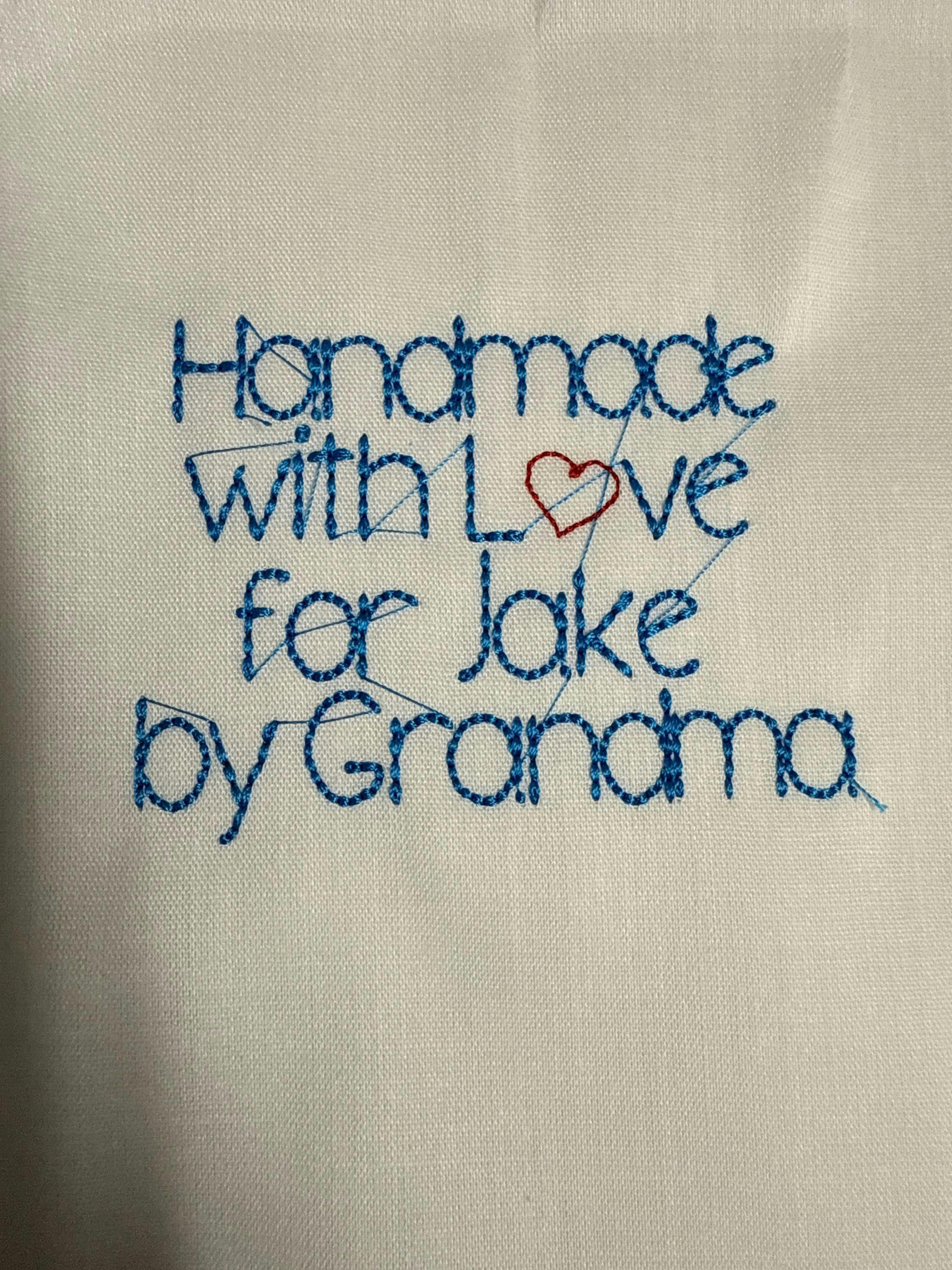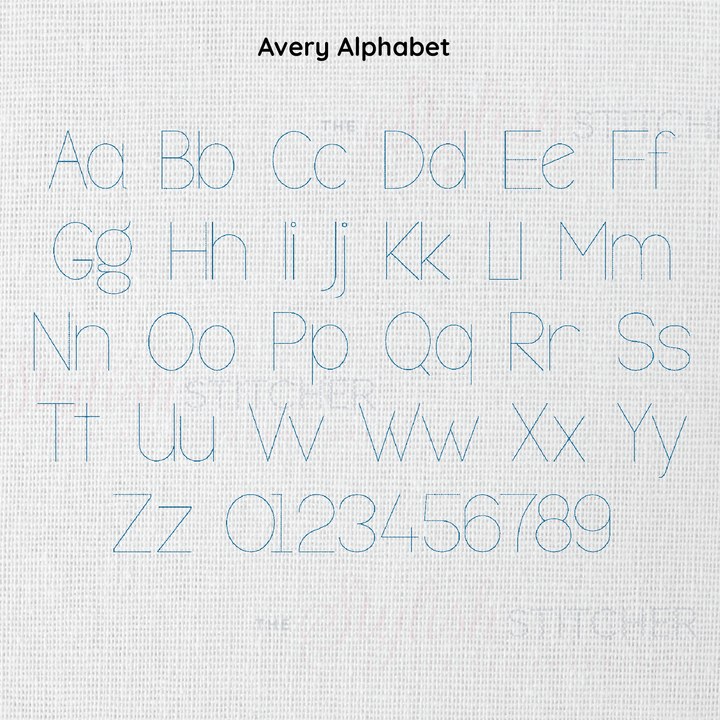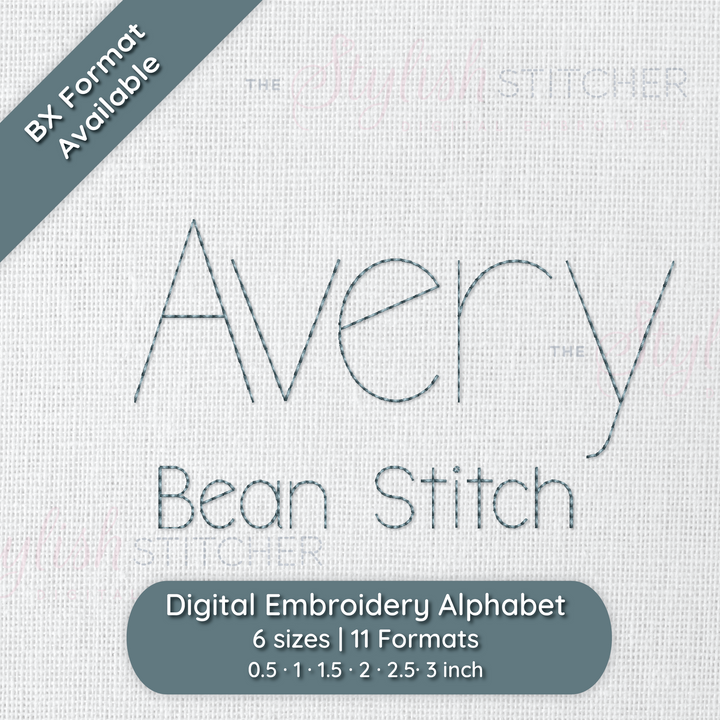
Photograph of stitched out Avery Bean Stitch embroidery font
Photograph of stitched out Avery Bean Stitch embroidery font alphabet
Avery Bean Stitch Style Embroidery Font
Meet Avery, the effortless touch your embroidery projects have been waiting for! This bean stitch font is all about clean lines and smooth stitching, perfect for adding a minimalist vibe without compromising on detail. Avery's quick-stitching style means you can get beautifully crisp results in no time—ideal for when you need that polished look on a deadline.
Stitch Type: Bean Stitch